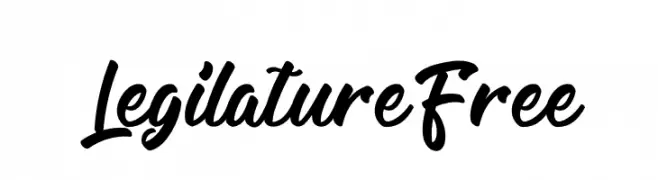
A casual, handwritten-style font with fluid, dynamic strokes.
A graceful and flowing script font with elegant, fluid letterforms.
A bold, expressive script font with flowing, cursive letters.
A playful, handwritten font with a casual and dynamic style.
A whimsical, curly font with a playful, hand-drawn style.
A modern, handwritten cursive font with smooth, flowing lines.
A lively and flowing handwritten font with elegant, fluid strokes.
A casual handwritten font with smooth, flowing strokes.
A playful, bold, and rounded font with a hand-drawn, whimsical style.
A flowing, cursive script with elegant loops and swashes.